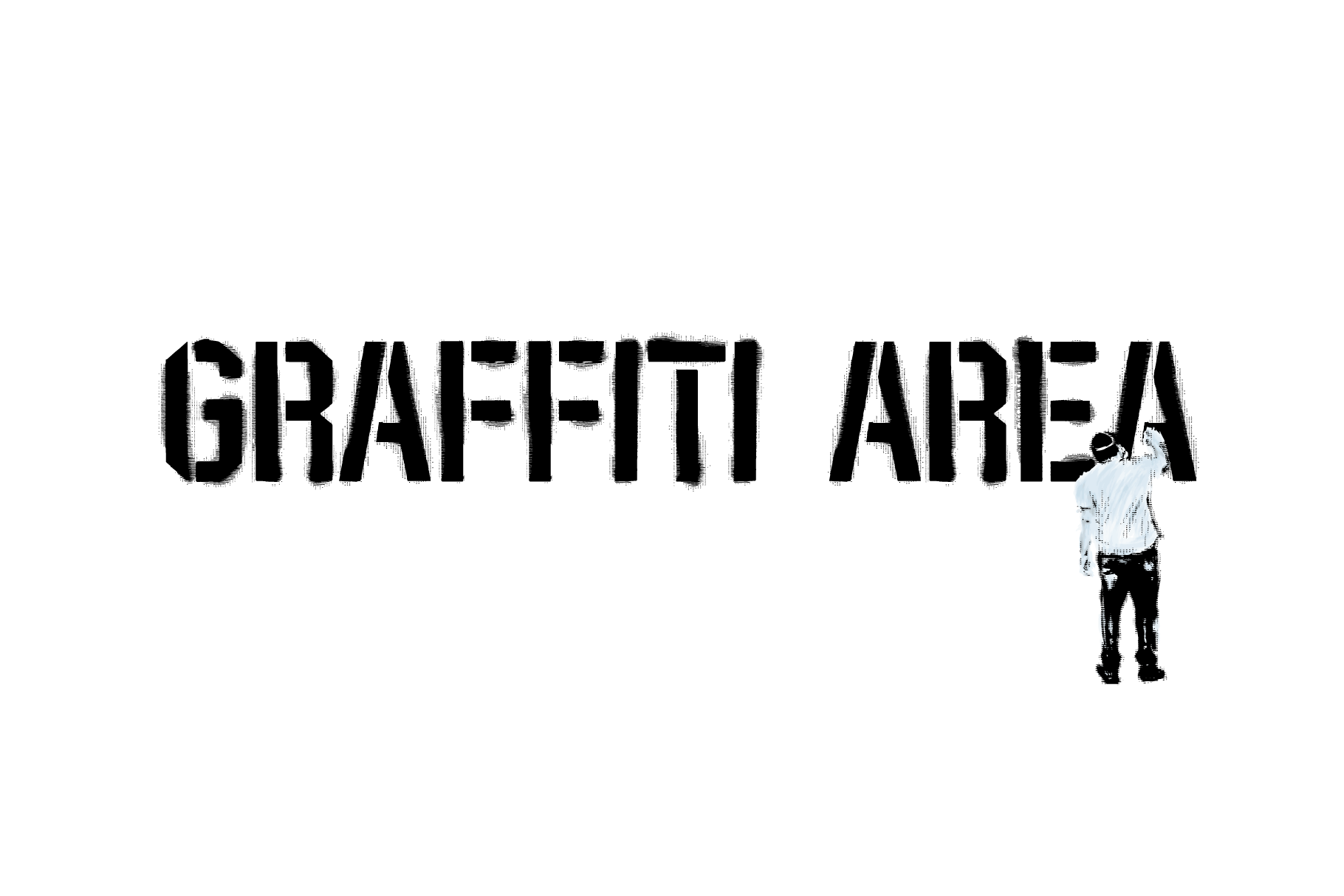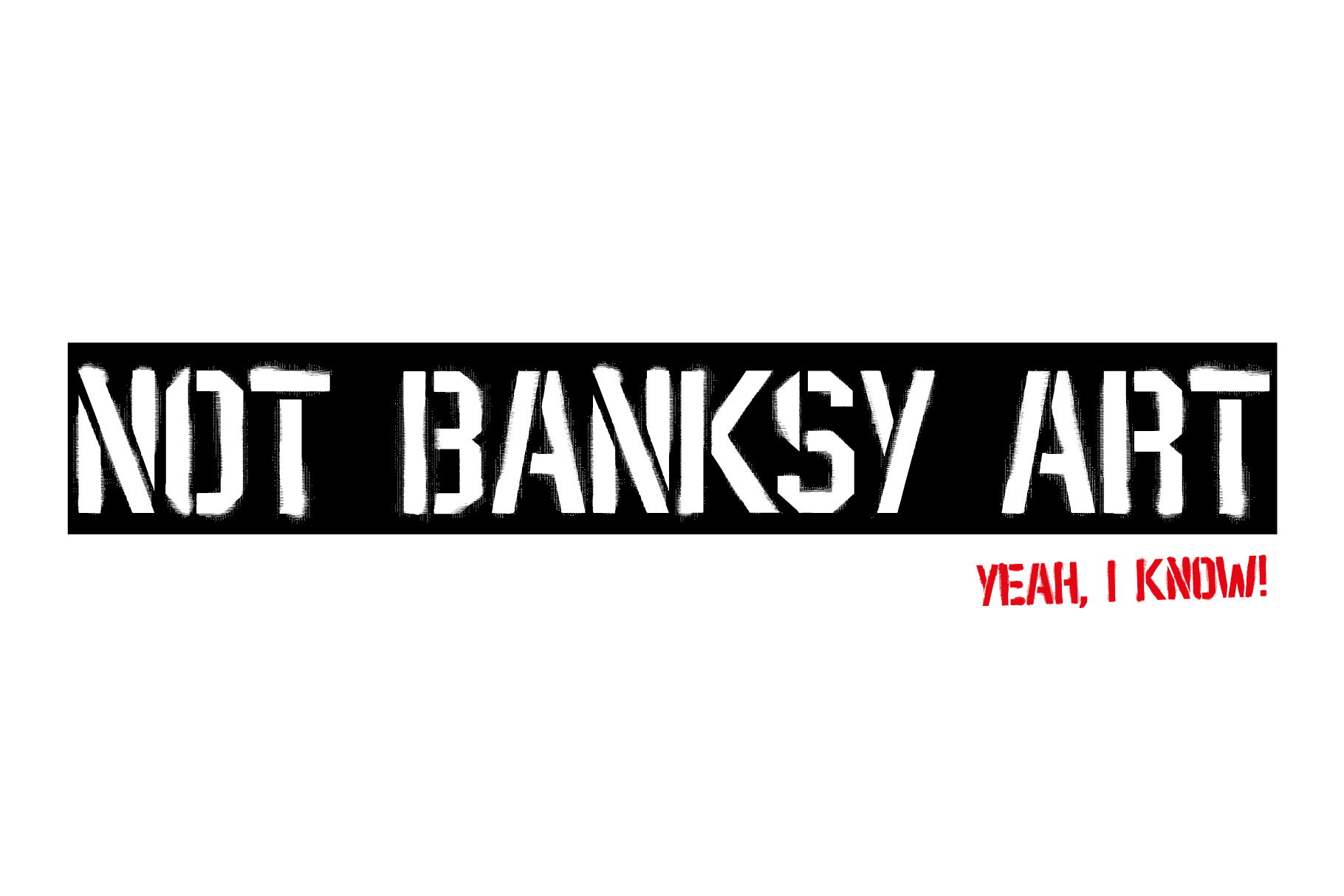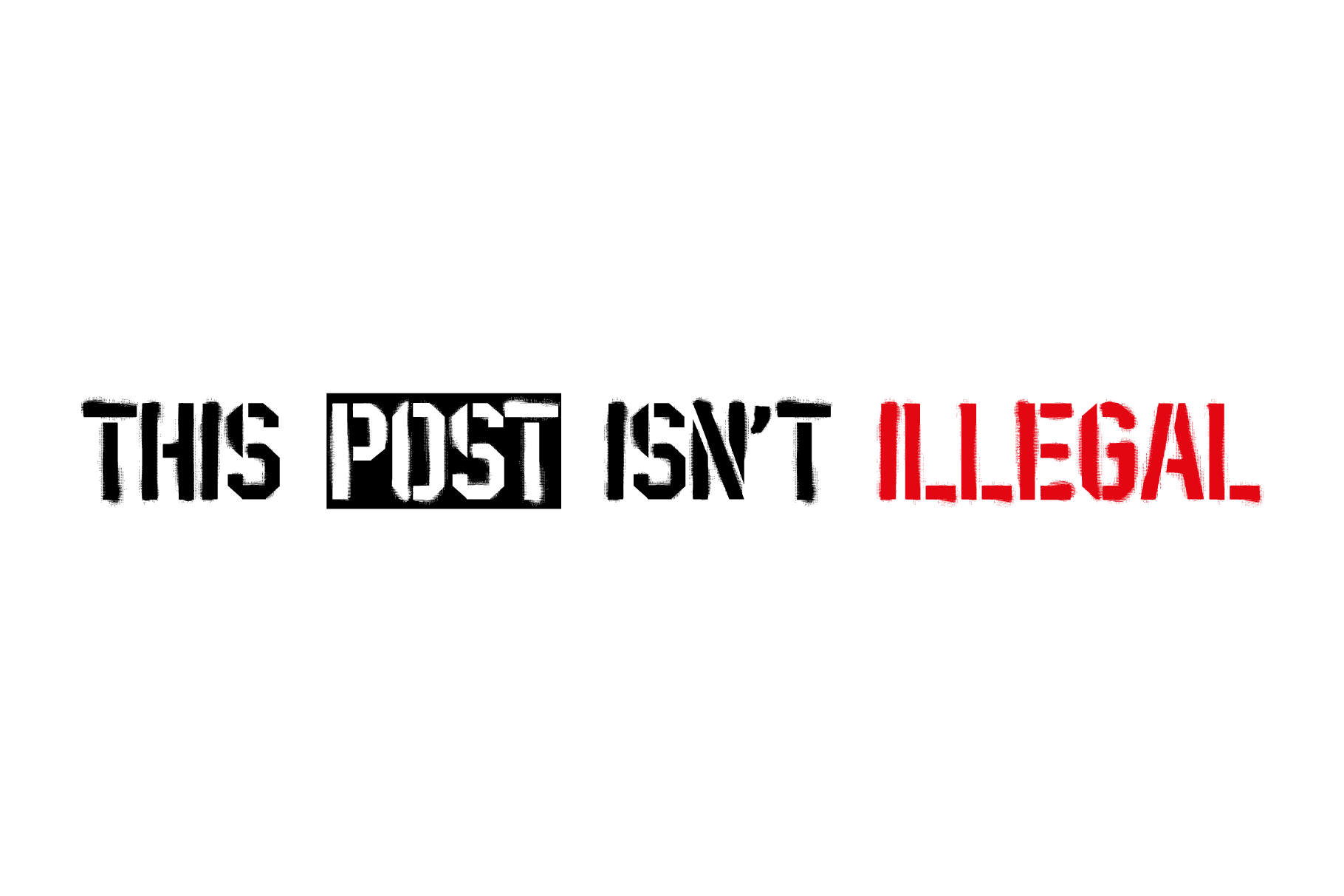
Stencil Ptx Font
Stencil Ptx Font is a bold stencil display typeface by Pedro Teixeira Foundry, designed for branding, posters, packaging, editorial design, campaign graphics, and expressive visual communication. Built with a strong stencil structure and distinctive graphic presence, it is made for projects that need clarity, impact, and character.
This typeface is available in two versions: Stencil Ptx Clean and Stencil Ptx Sprayed. Together, they offer flexibility for designers who want either a sharper stencil appearance or a rougher, more sprayed visual texture, depending on the tone of the project.
Included Styles
- Stencil Ptx Clean – a cleaner and more controlled stencil version for bold, structured display use
- Stencil Ptx Sprayed – a more raw and expressive version with sprayed character and a rougher visual texture
Why Choose Stencil Ptx Font
This stencil display typeface is a strong choice for designers looking for a versatile family with more than one visual direction. The clean version supports sharper and more controlled compositions, while the sprayed version adds a more energetic and distressed tone. This makes the family effective across both refined and experimental creative work.
- Stencil display typeface with strong graphic presence
- Includes Clean and Sprayed versions
- Suitable for branding, posters, packaging, and editorial design
- Designed for impactful display use in print and digital media
- Created by Pedro Teixeira Foundry
Best Uses for Stencil Ptx Font
Stencil Ptx Font is especially effective in posters, music artwork, fashion graphics, packaging systems, campaign visuals, editorial covers, and bold branding projects. It is best used at larger sizes where the stencil structure and stylistic details can create maximum visual impact.
Ideal for:
- Poster and campaign design
- Branding and visual identity systems
- Packaging and product graphics
- Editorial covers and large headlines
- Music, culture, and event communication